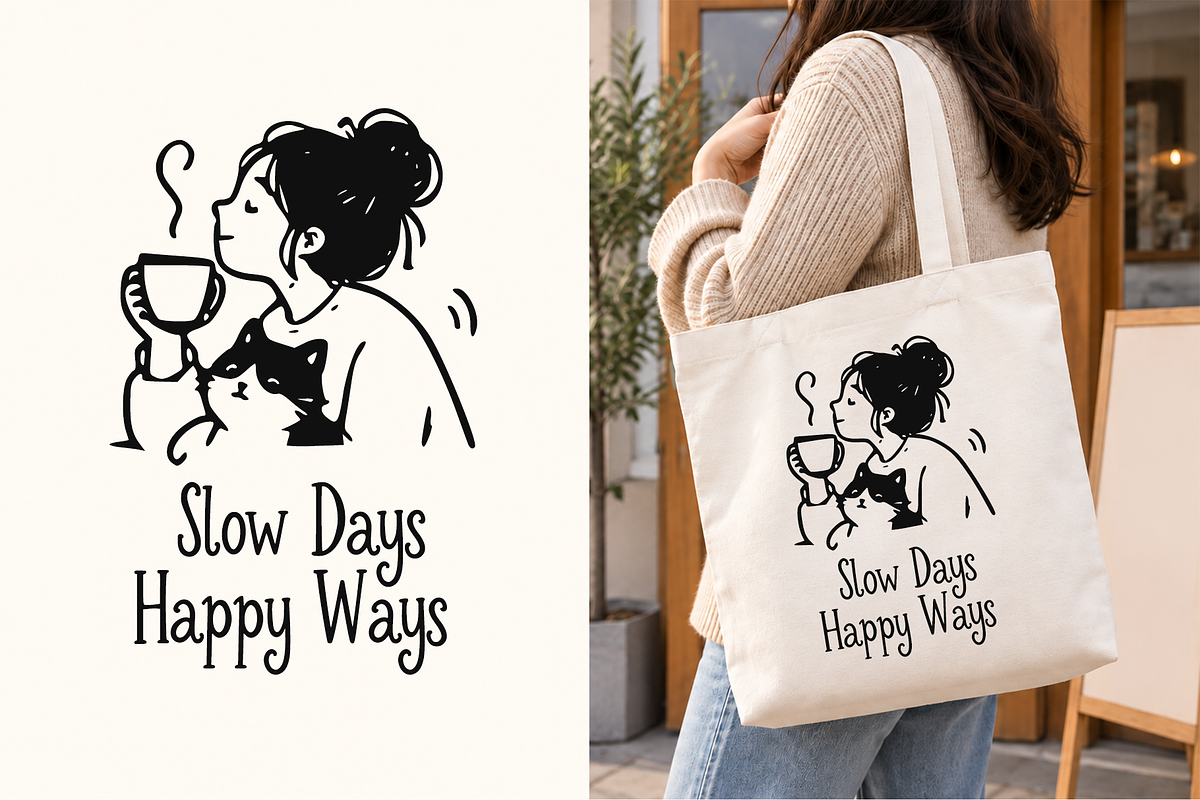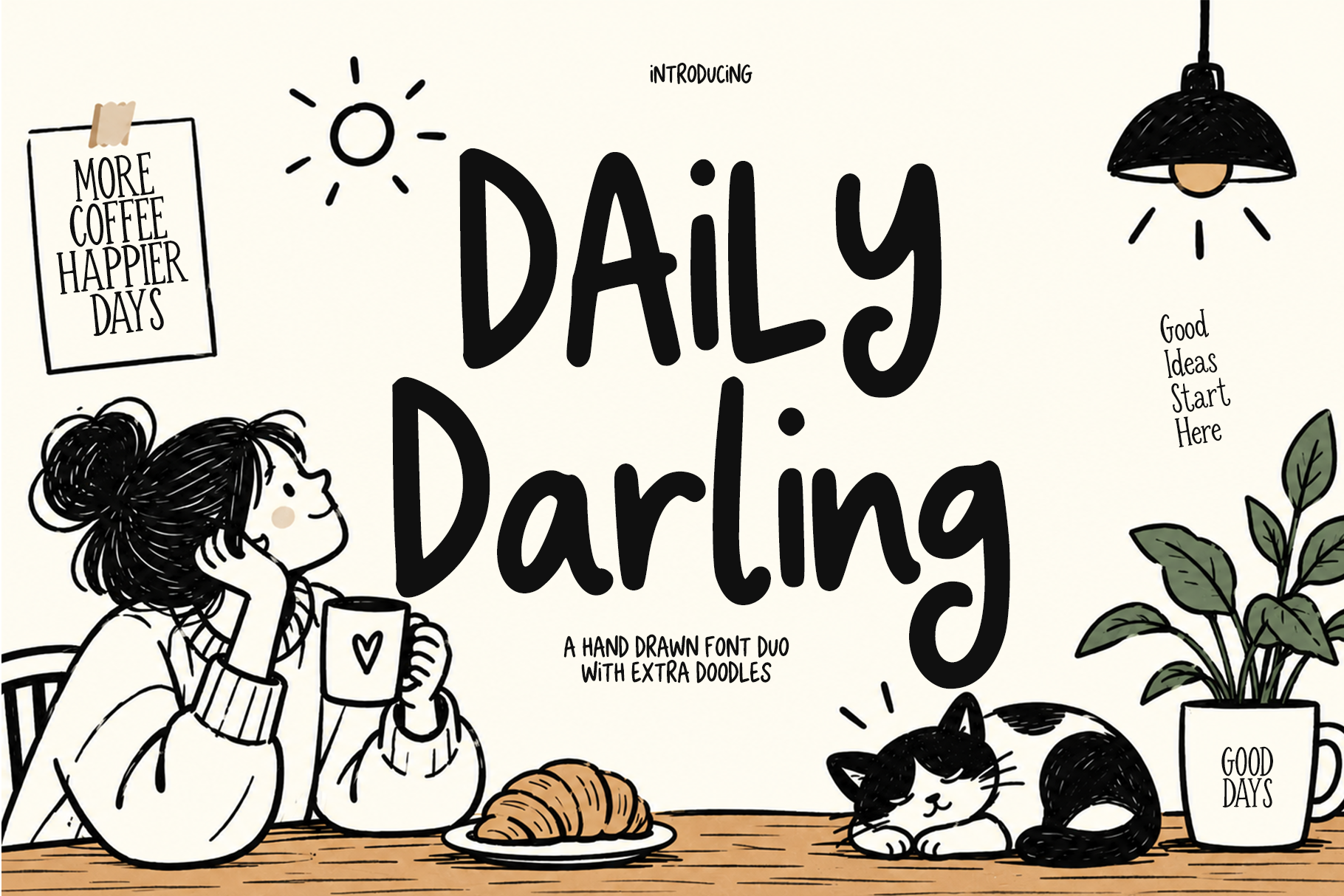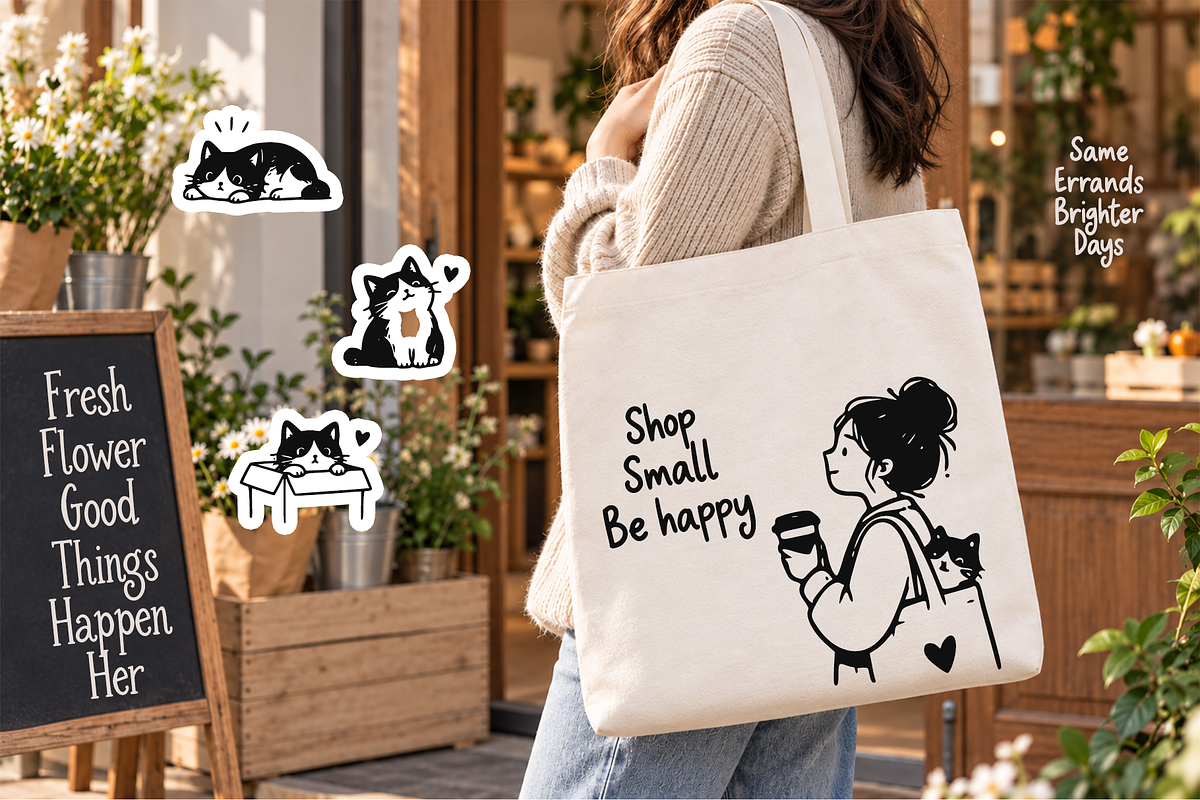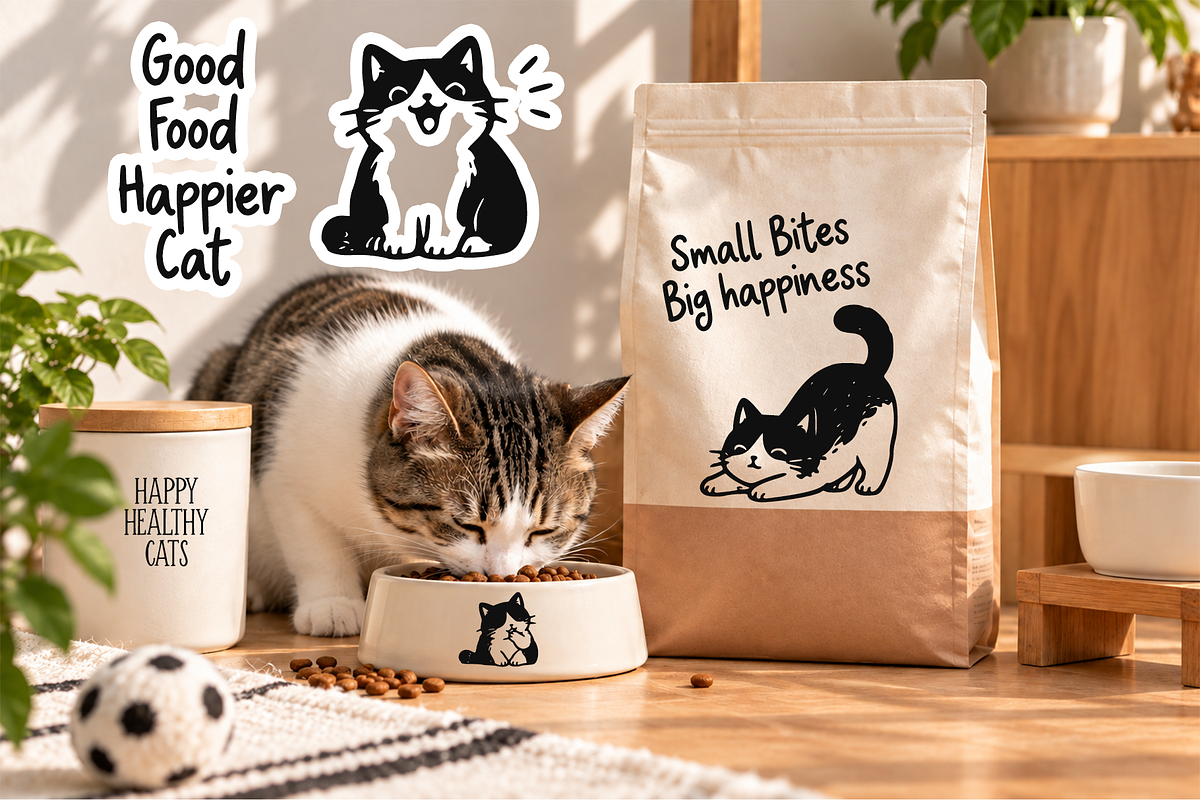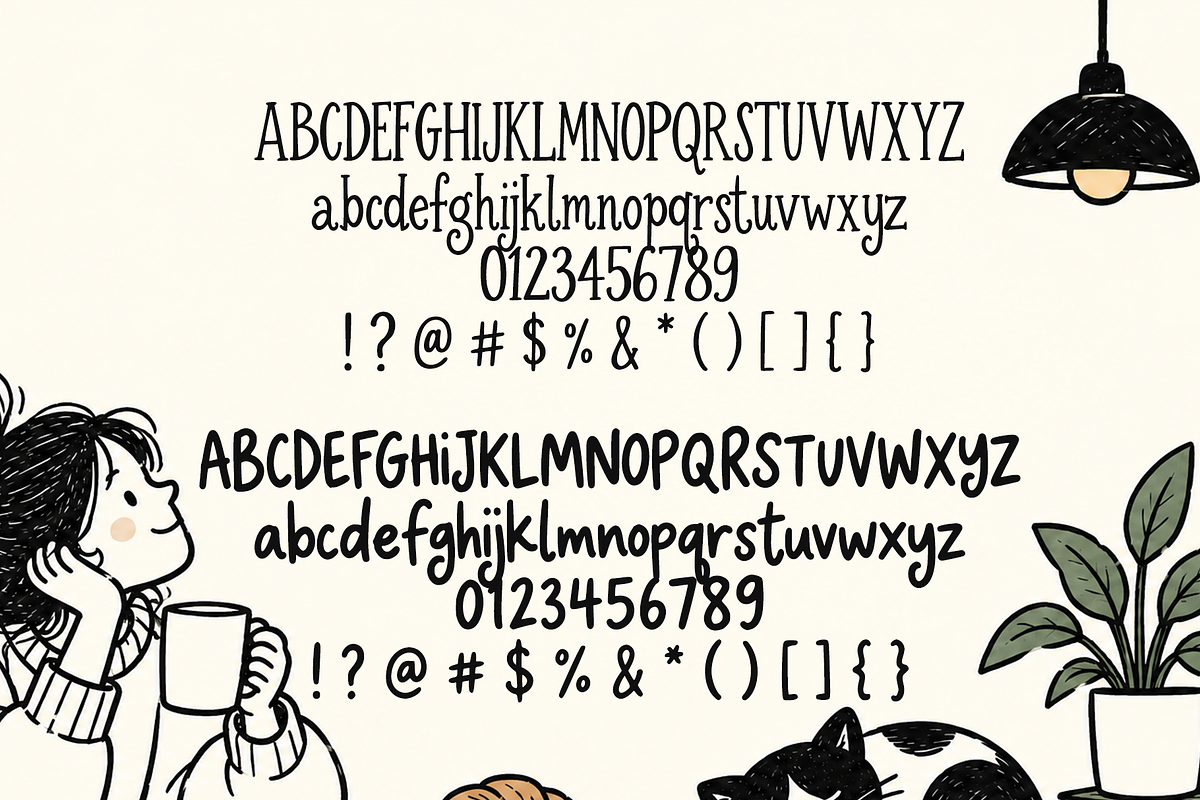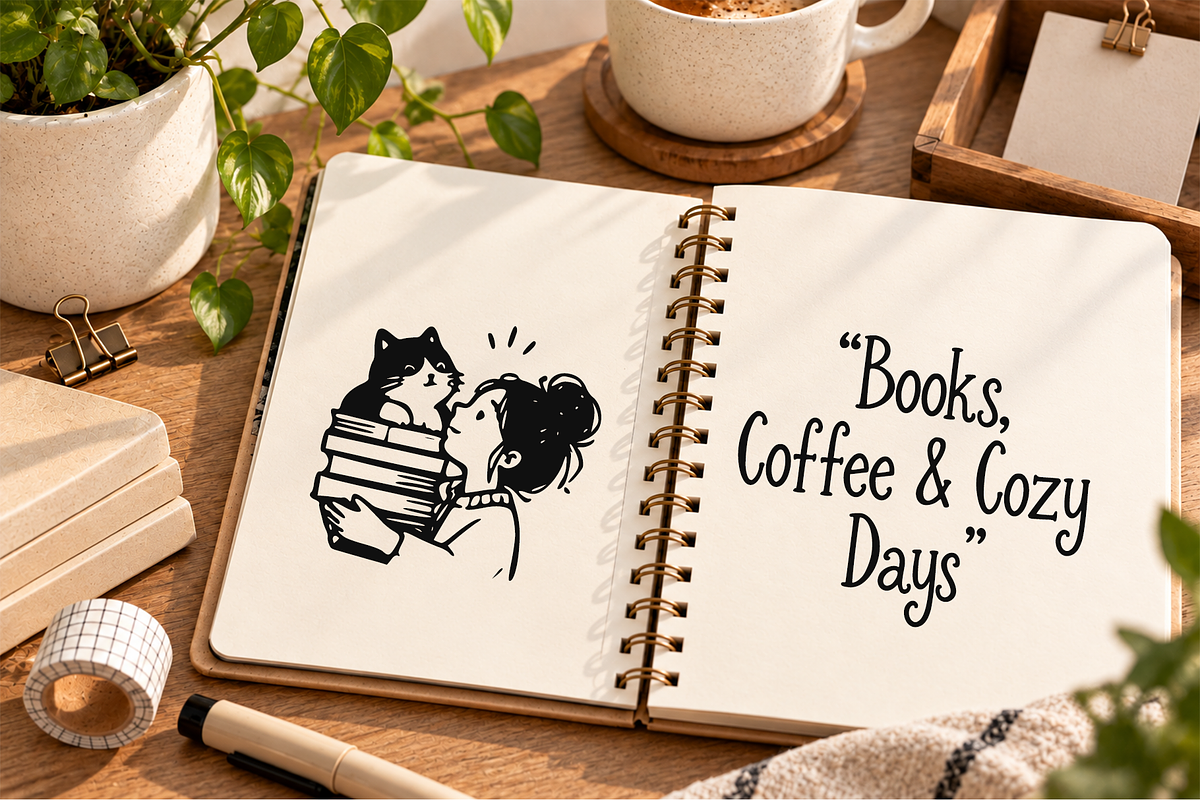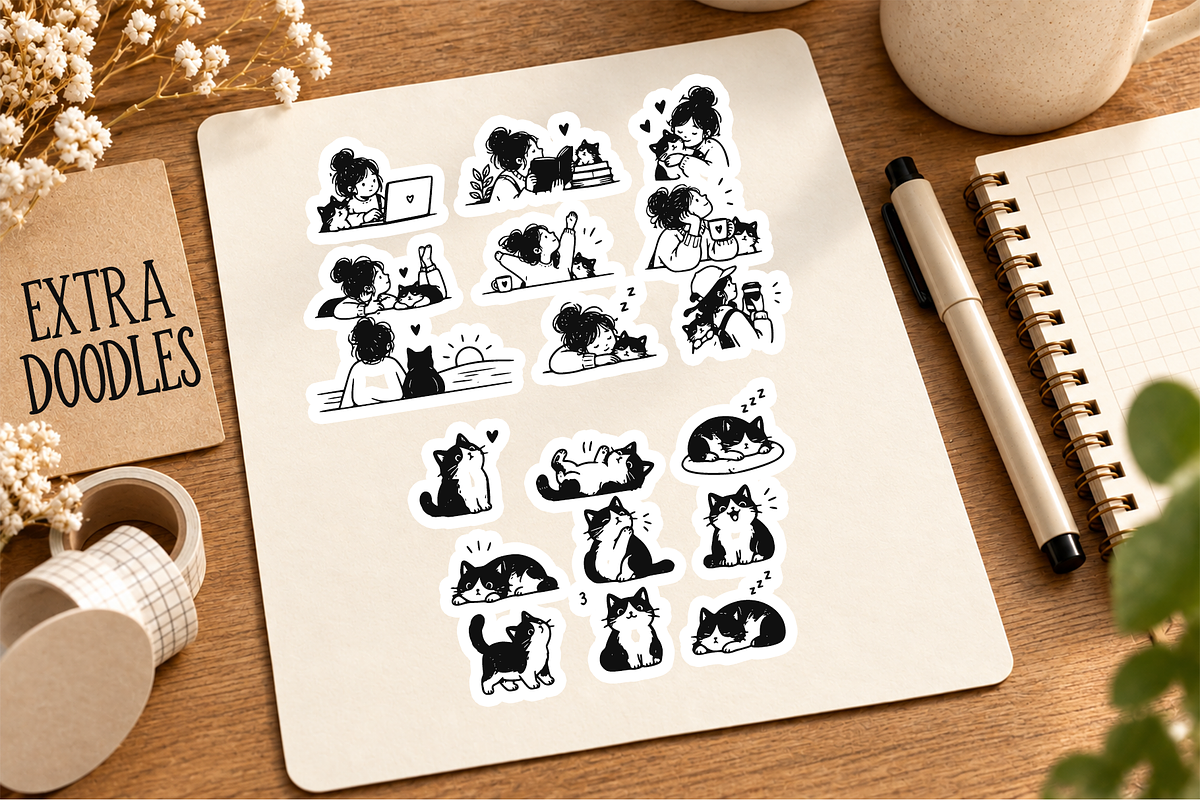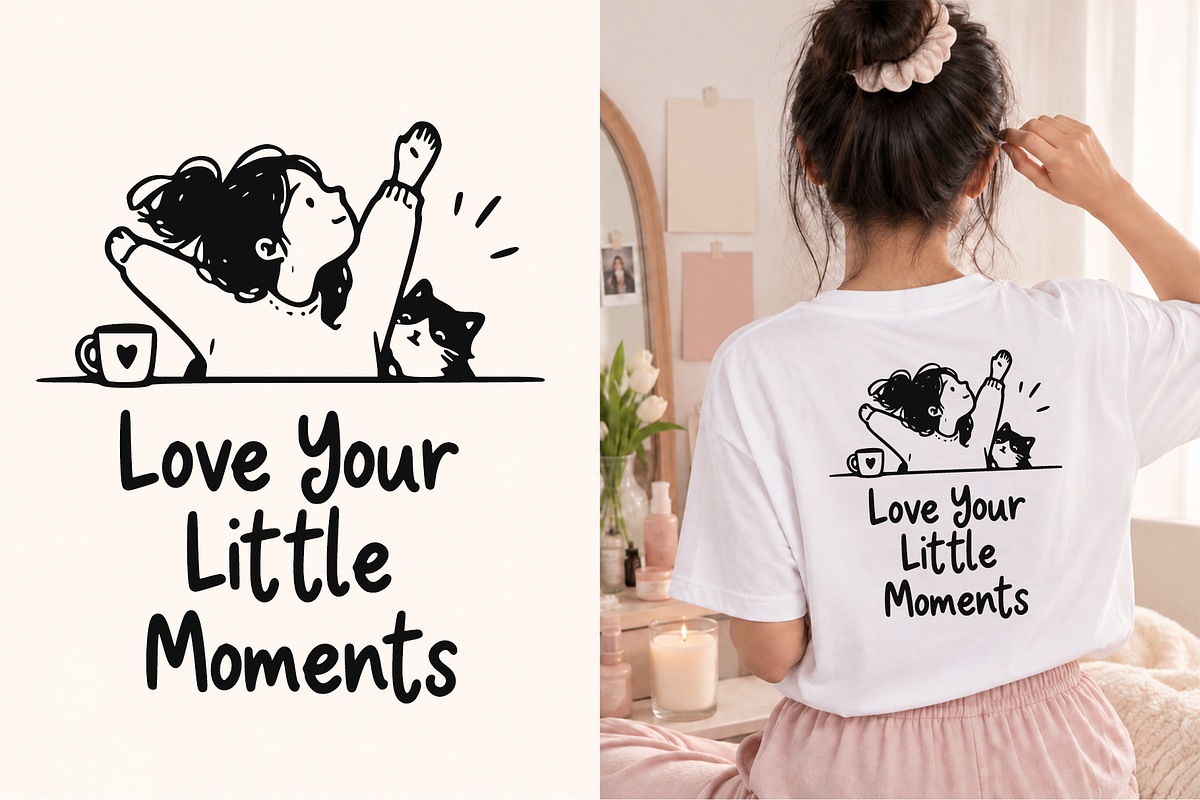
Daily Darling font duo
Daily Darling is a charming hand-drawn font duo with a playful, natural, and personal feel. Its organic lettering brings warmth and character to everyday designs while keeping the overall look clean, expressive, and easy to use.
This versatile font duo is perfect for adding a handmade touch to branding, logos, packaging, stationery, social media, apparel, invitations, posters, quotes, crafts, and other creative projects.
The package also includes extra doodle elements that can be mixed and matched with the lettering to create unique and personalized compositions.